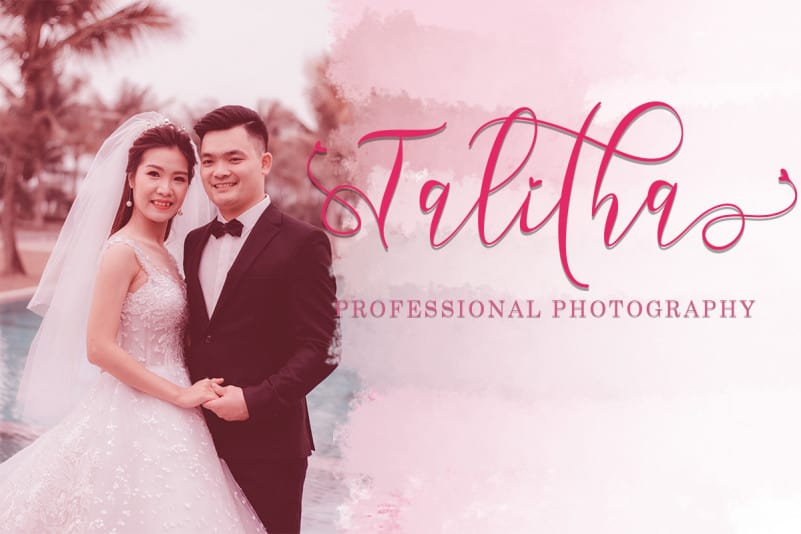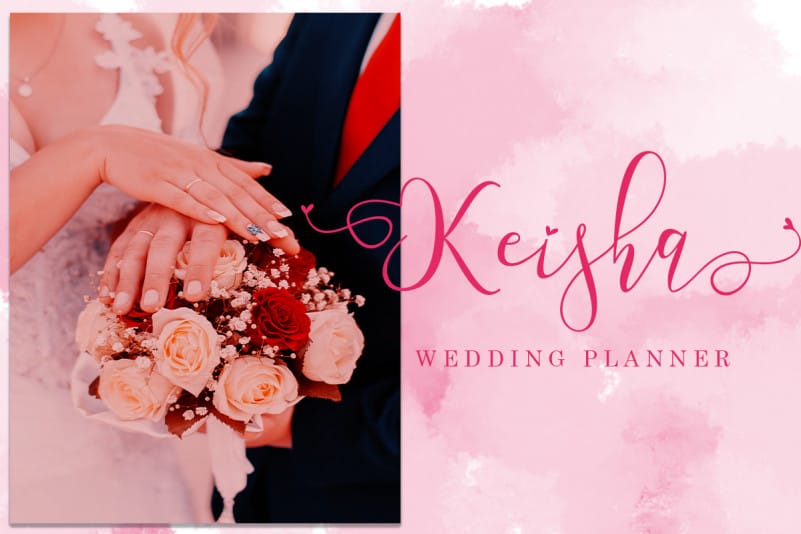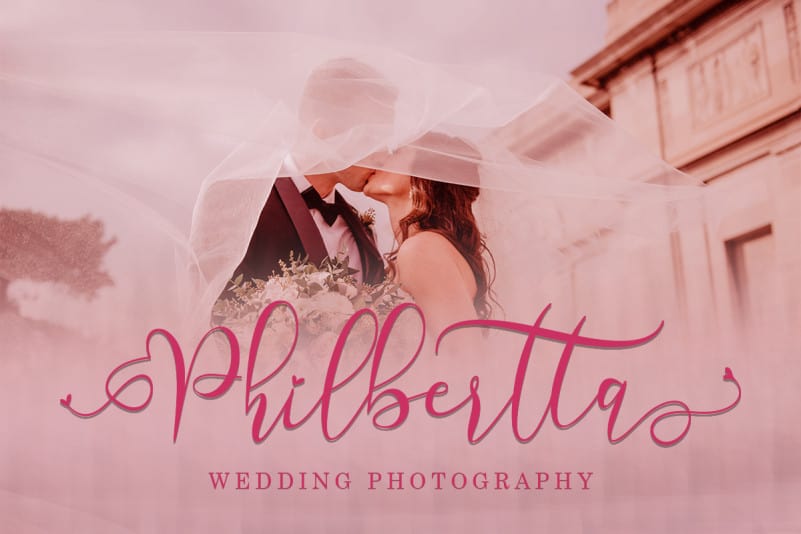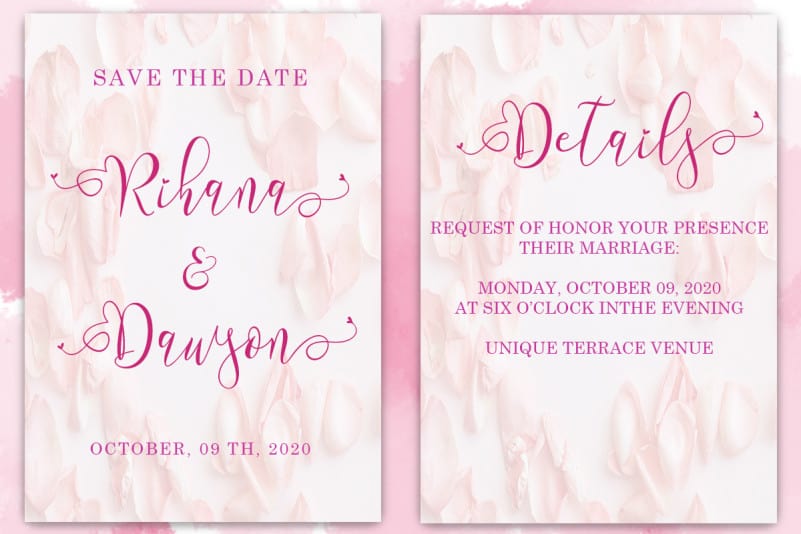
Meillea Calligraphy Font is a high quality font that is made with a subtle touch, resulting in a very beautiful, elegant font suitable for all types of your work. This font is perfect for all wedding needs (wedding invitations, wedding photography, decorations, and other wedding designs. It is perfect for promoting your business (hotel, villa, vacation spots, products, services or other promotions. Also suitable for promo updates, logos, branding, posters, or for status updates on social media.